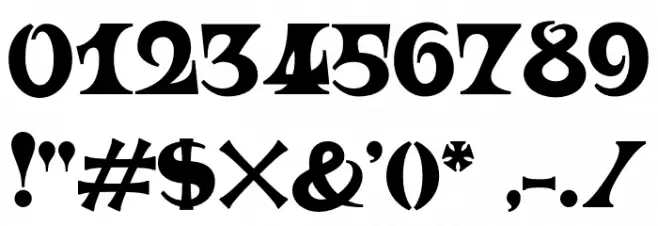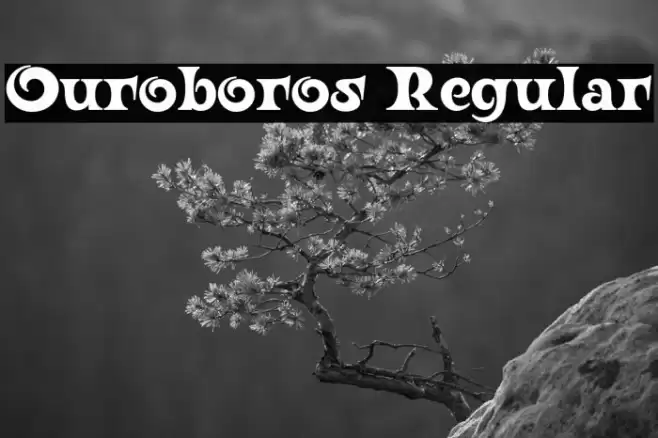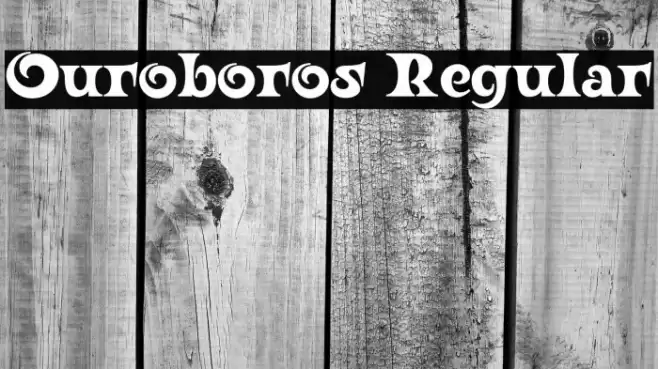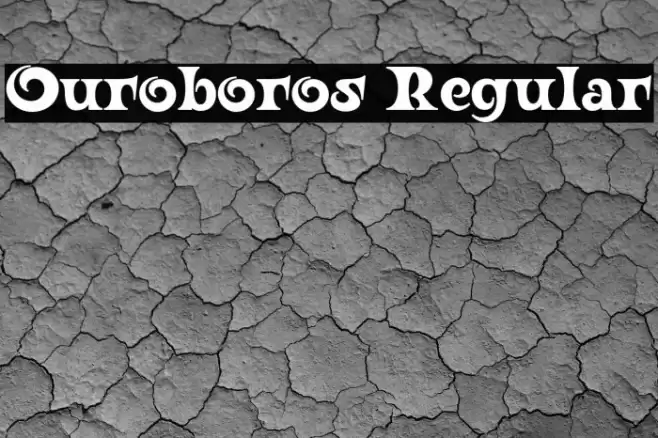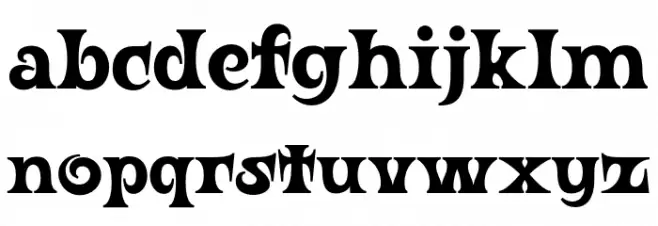
Ouroboros Regular Font
Ouroboros Regular Description
This font features a bold and striking design with a unique blend of modern and decorative elements. The characters are crafted with high contrast in stroke thickness, creating a dramatic and eye-catching appearance. The uppercase letters have a distinct flair with exaggerated serifs and curves, while the lowercase letters maintain a consistent style with rounded forms and sharp edges. The numerals and special characters follow the same bold and decorative theme, making them stand out. Overall, this font exudes a sense of elegance and creativity, suitable for projects that require a strong visual impact.
| Use Case | Logos, Headlines, Posters |
| Proposed Projects | Ideal for branding, poster design, album covers, and any project needing a bold, artistic touch. |